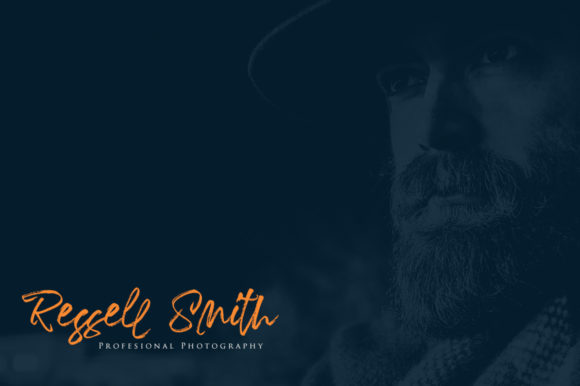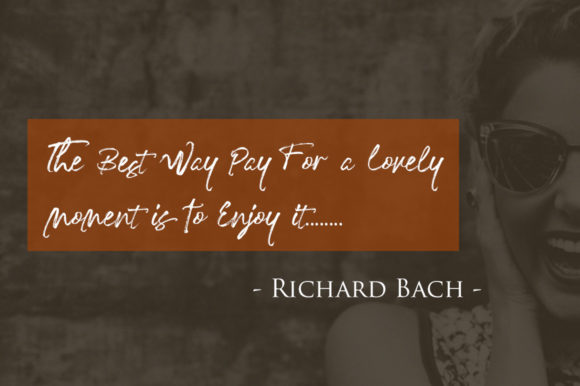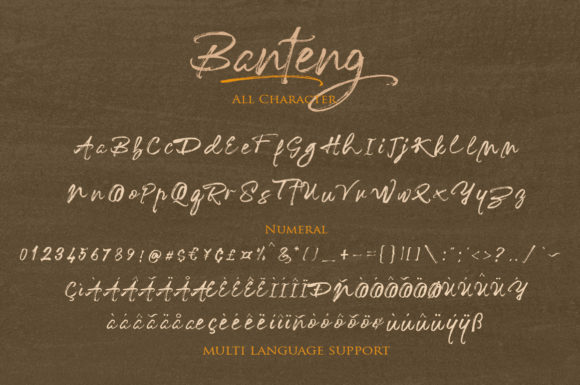
About Banteng Font
Banteng is a modern brush styled handwritten font. No matter the topic, this font will be an incredibly asset to your fonts’ library, as it has the potential to elevate any creation.